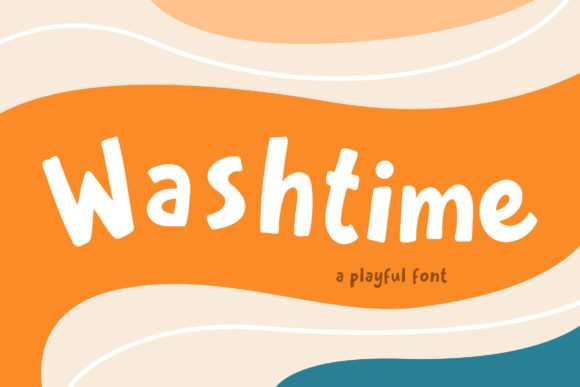
Washtime: A Fun and Functional Display Font
Washtime is a unique display font that brings a playful yet professional vibe to any design project. Its clean lines and modern look make it ideal for a wide range of applications, from printed materials to digital content. Whether you're working on a business report or designing a poster, Washtime offers a fresh alternative to more traditional typefaces.
What Makes Washtime Stand Out?
Washtime is designed with a balance between creativity and readability. It features a slightly rounded edge that gives it a friendly appearance while maintaining clarity in both large and small sizes. This combination makes it suitable for various formats, including books, magazines, and even digital interfaces.
The fontβs versatility allows it to adapt to different styles without losing its identity. It works well in both bold and light weights, making it a flexible choice for designers looking to add visual interest to their work.
Practical Uses for Washtime
Washtime is particularly useful in contexts where a modern and approachable look is needed. For example, in business reports or correspondence, it can add a touch of personality without compromising professionalism. In marketing materials like posters or advertisements, it helps catch attention while still being easy to read.
For educational content, Washtime can make documents feel less formal and more engaging. Teachers or educators creating handouts or presentations might find it helpful in making information more accessible to students.
Real-World Examples
- Business Reports: Use Washtime for headings and subheadings to create a visually appealing layout without overwhelming the reader.
- Magazines and Newspapers: Incorporate Washtime into headlines or feature sections to add a modern twist to traditional layouts.
- Corporate Design: Apply Washtime to logos, banners, or signage to maintain a cohesive brand identity that feels current and dynamic.
Why Choose Washtime?
Designers and professionals often seek fonts that are both functional and stylish. Washtime meets these needs by offering a distinctive look that doesnβt sacrifice usability. Its appeal lies in its ability to blend creativity with practicality, making it a go-to choice for many projects.
For entrepreneurs or small business owners, using Washtime can help differentiate their brand in a crowded market. A unique font can make a lasting impression, especially when used consistently across all communication channels.
Considerations Before Using Washtime
Before incorporating Washtime into your designs, consider the context in which it will be used. While it excels in display settings, it may not be the best choice for body text in long-form content. Always test the font in different sizes and formats to ensure it remains legible and effective.
Additionally, check if the font is available in the right weights and styles for your needs. Some design projects may require specific variations, such as italic or condensed versions, to achieve the desired effect.
Getting Started with Washtime
Conclusion
Washtime is more than just a fontβit's a tool that can enhance the visual appeal of your work while maintaining clarity and professionalism. Whether you're a designer, educator, or business owner, it offers a versatile solution for a variety of projects. By understanding its strengths and limitations, you can make the most of this fun and functional display font in your creative or professional endeavors.